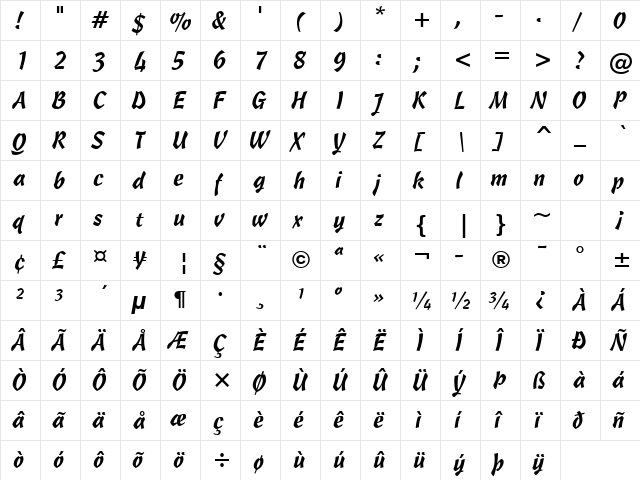
Freehand471 BT Regular
Design Context for Freehand471 BT Typeface
Freehand471 BT flows with the natural rhythm of handwritten lettering, making it ideal for designs that call for warmth and personal expression.
Font Pairing: Combine Freehand471 BT with a simple geometric sans for maximum contrast — the tension between flowing curves and clean structure is a classic typographic pairing.
Pro Tip: Use Freehand471 BT for short runs of text — names, titles, or taglines. Extended body copy in script faces tires the eye quickly.